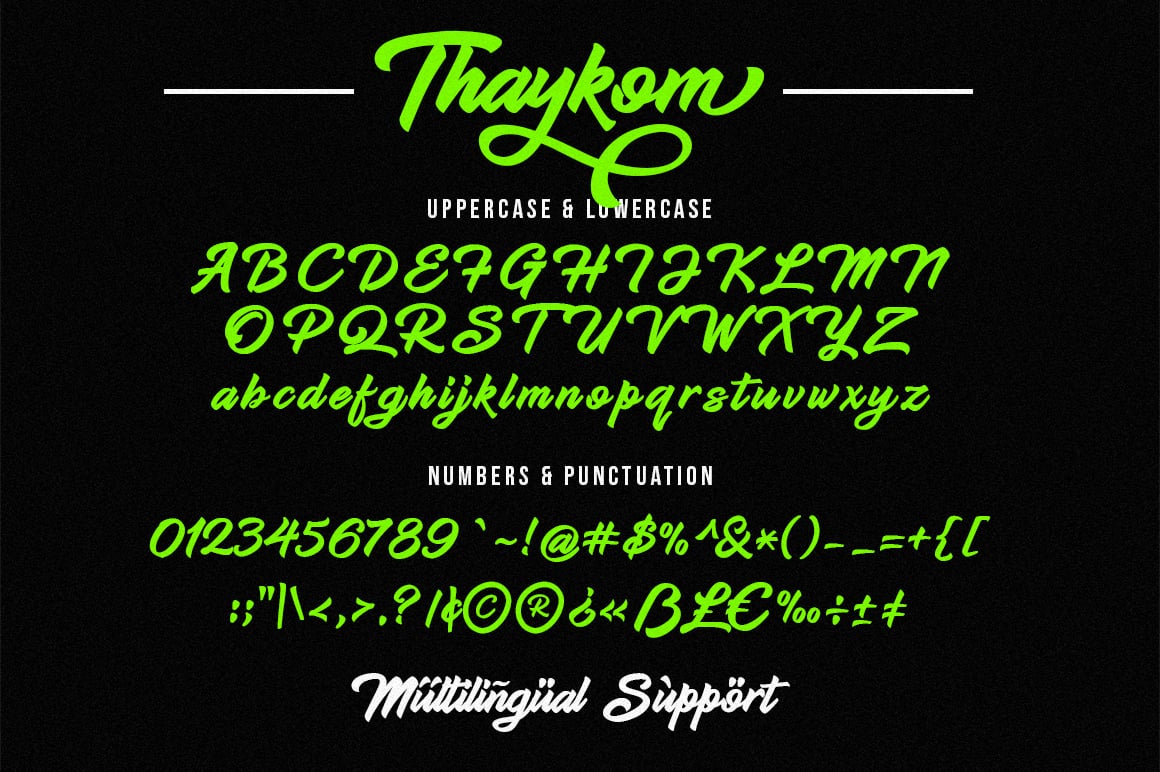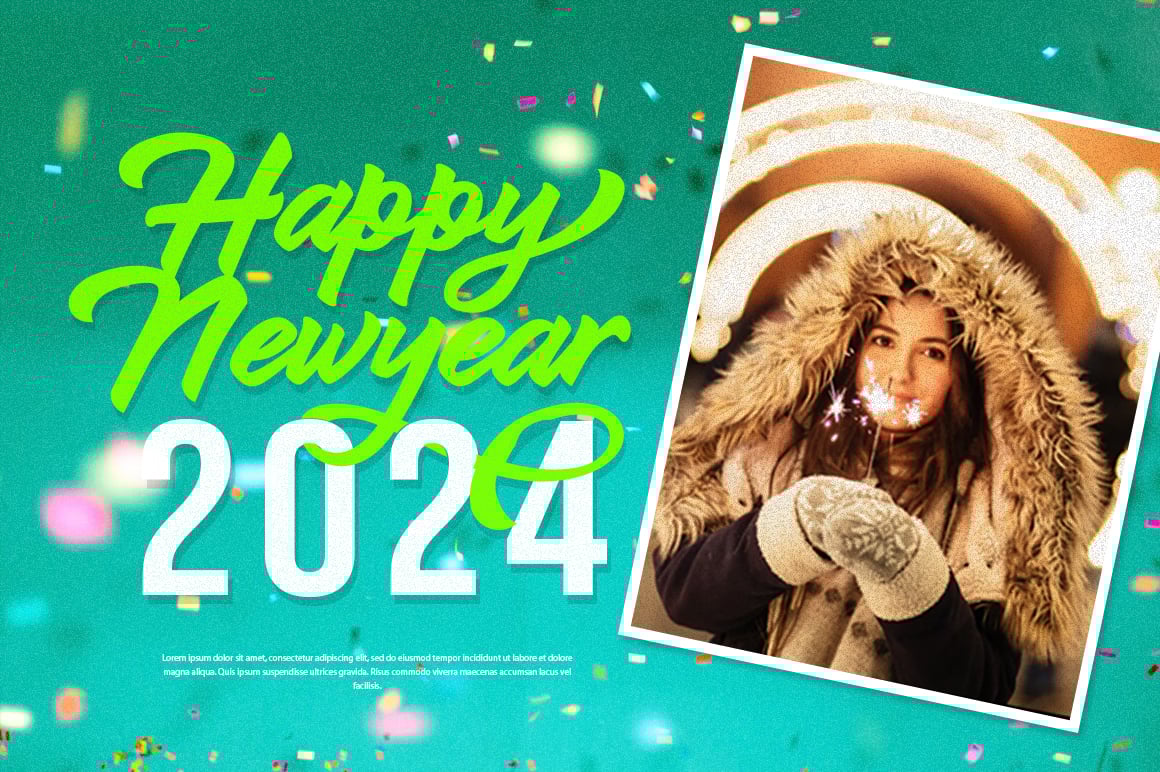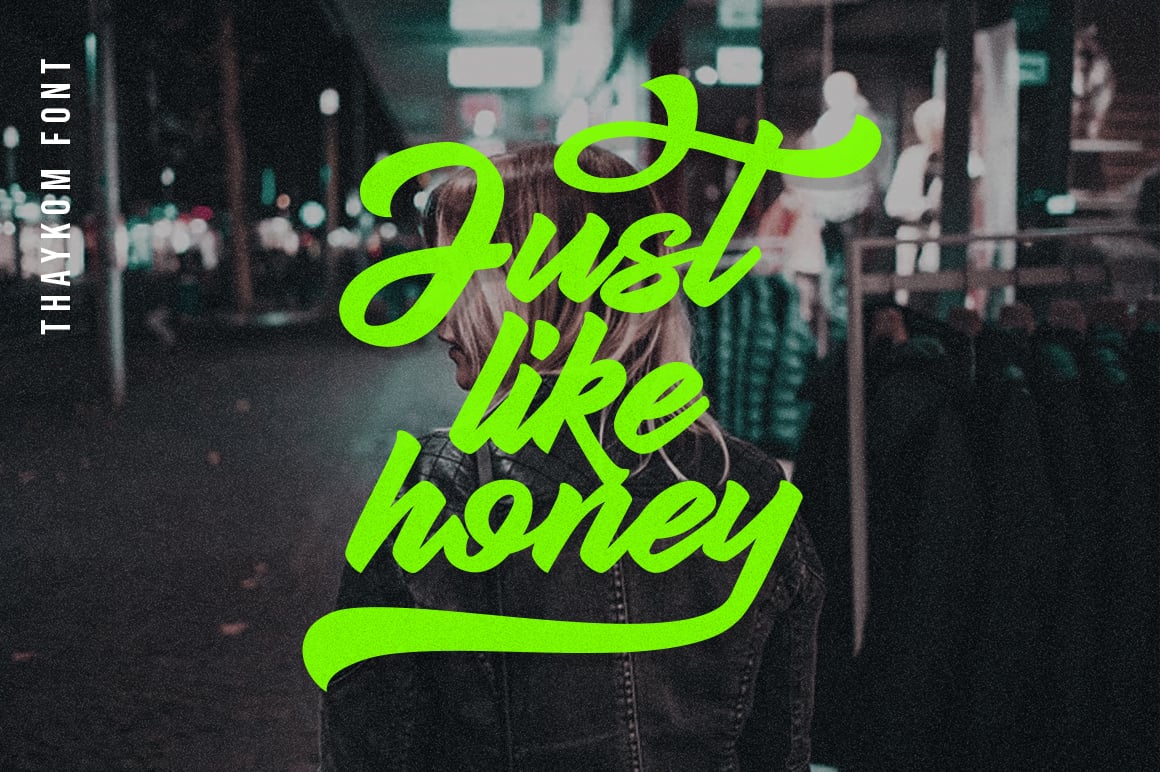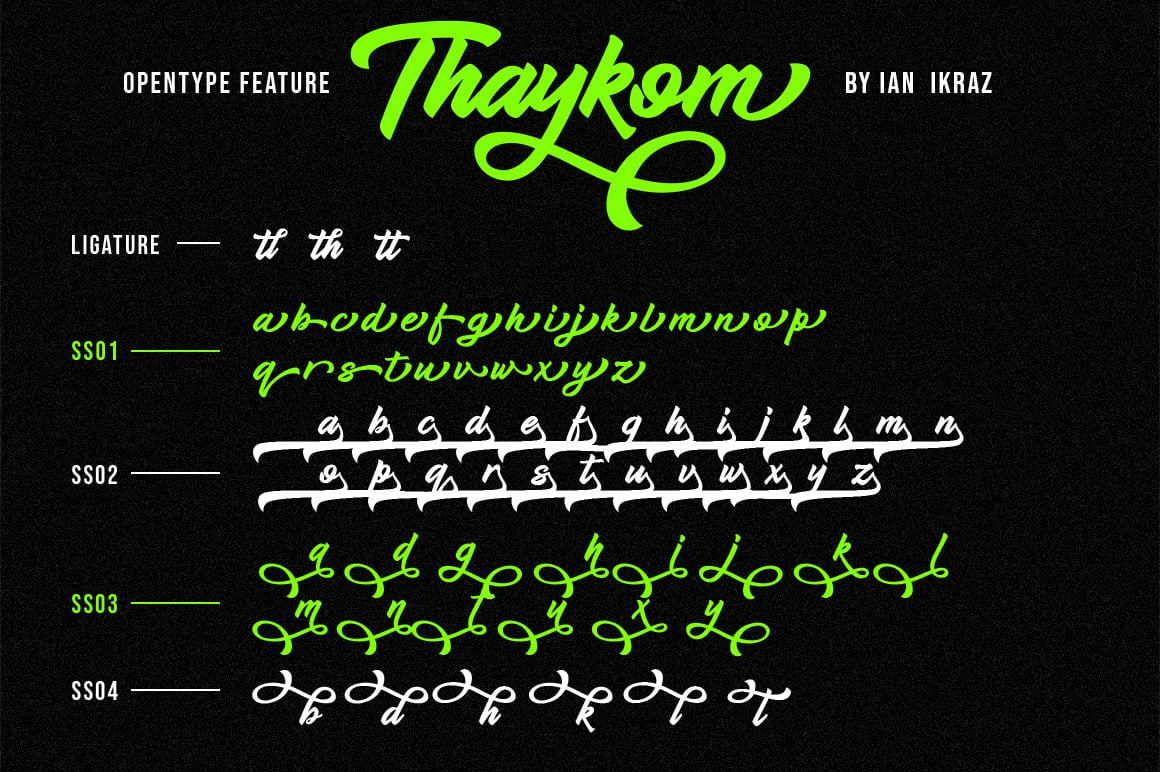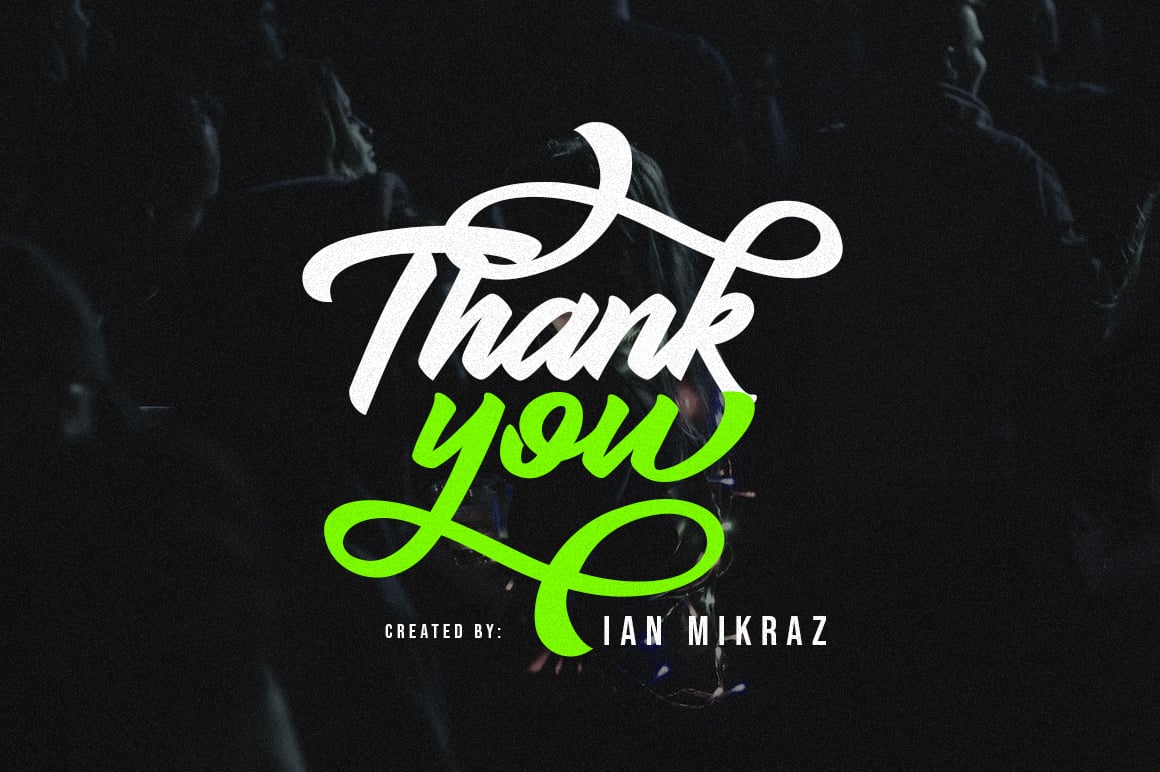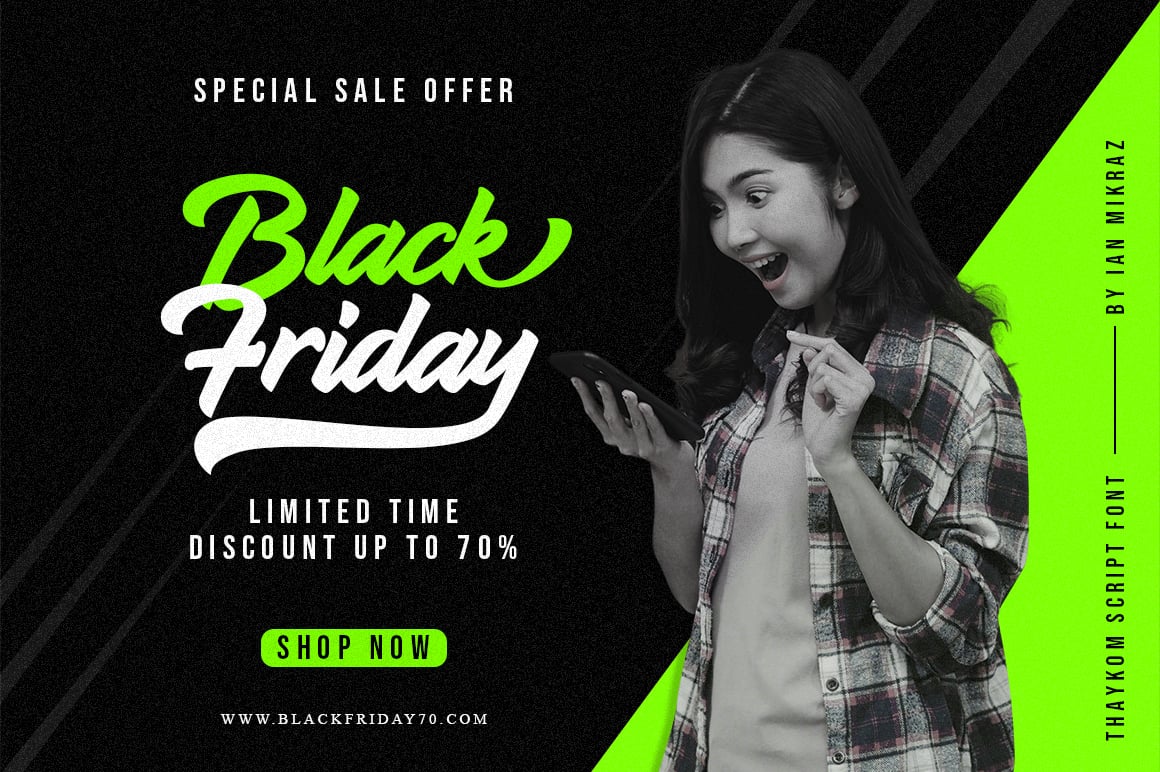
Thaykom – Hand Lettering Modern Script Typeface
Thaykom is a hand-lettering modern script typeface that infuses contemporary designs with a touch of artistry and sophistication. Its fluid and graceful strokes add a sense of elegance to various design projects, making them visually captivating and artistically expressive.
With Thaykom, you can effortlessly create captivating logos, branding materials, and stylish invitations that leave a lasting impression. Elevate your designs with the artistic flair of Thaykom, the perfect choice for contemporary and creative creations.
Thaykom is a hand-lettering modern script typeface that infuses contemporary designs with a touch of artistry and sophistication. Its fluid and graceful strokes add a sense of elegance to various design projects, making them visually captivating and artistically expressive.
With Thaykom, you can effortlessly create captivating logos, branding materials, and stylish invitations that leave a lasting impression. Elevate your designs with the artistic flair of Thaykom, the perfect choice for contemporary and creative creations
- Standart ligatures
- Stylistic Alternates